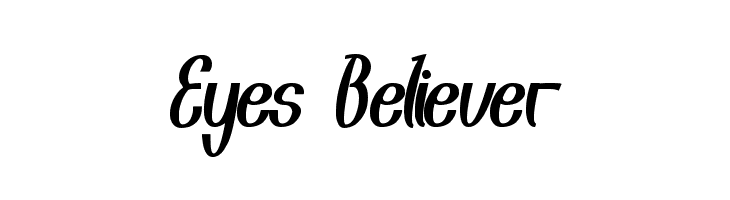
A playful and bold font with thick strokes and whimsical shapes.
Expressive, modern script with bold, sweeping strokes and decorative flair.
A font featuring symbols resembling electronic circuit diagrams.
A bold, geometric font with a modern and futuristic style.
A bold, decorative font with spiky, textured accents for a playful and edgy look.
A series of whimsical stick figure illustrations with varied facial expressions.
A bold, playful font with cartoonish eyes on each letter.
A decorative, hand-drawn set of expressive eye illustrations.
A dynamic script font with bold, flowing characters and a modern flair.